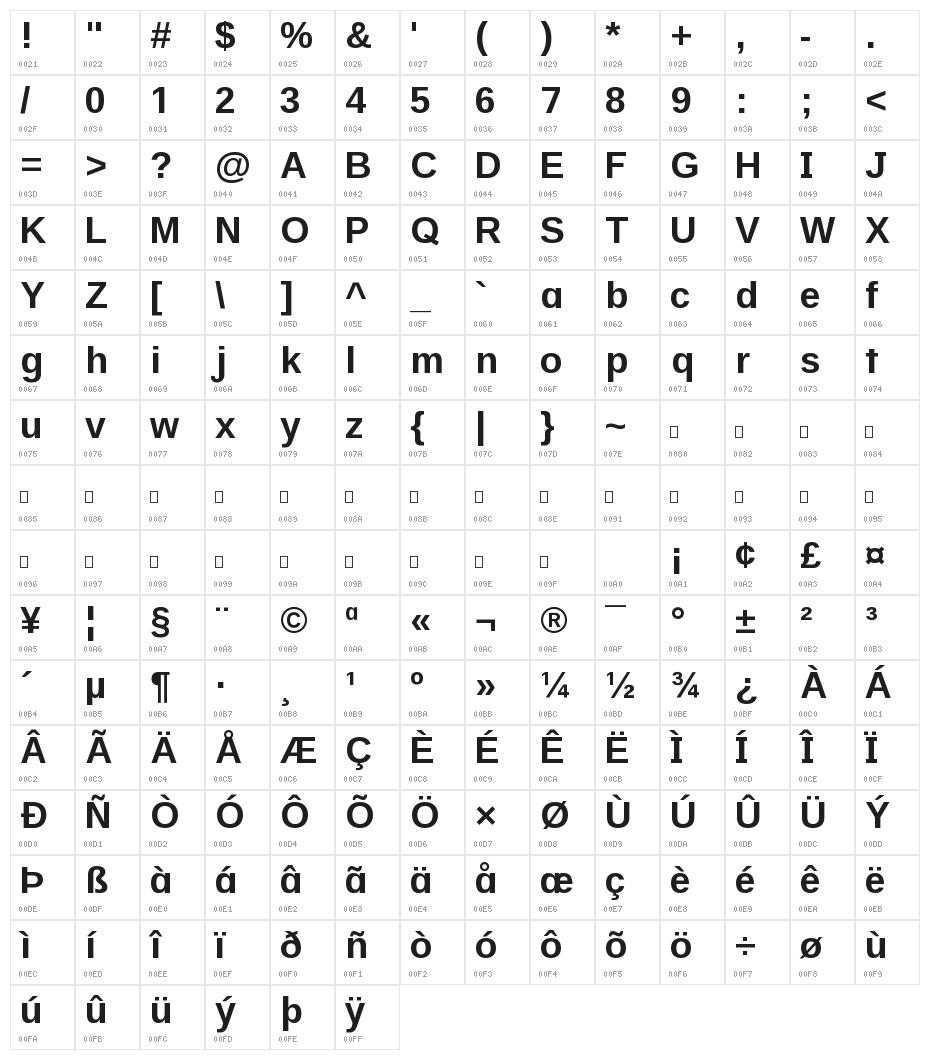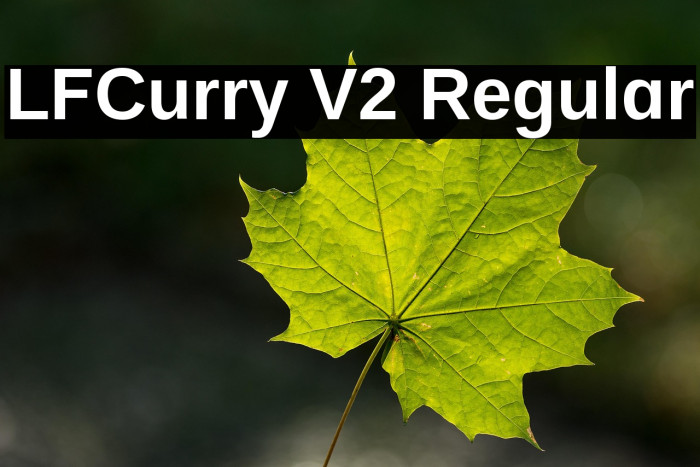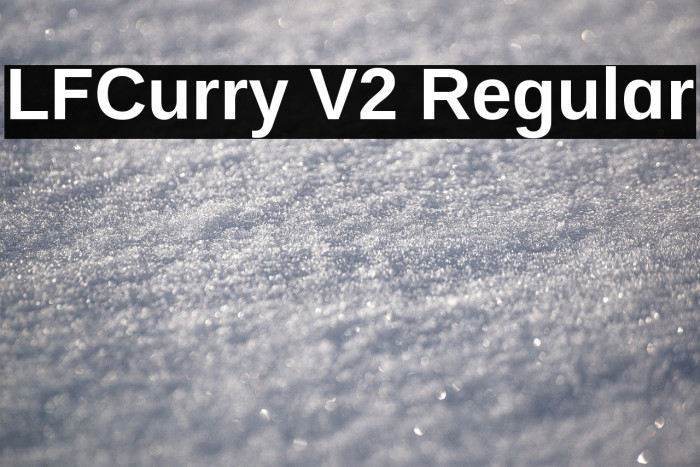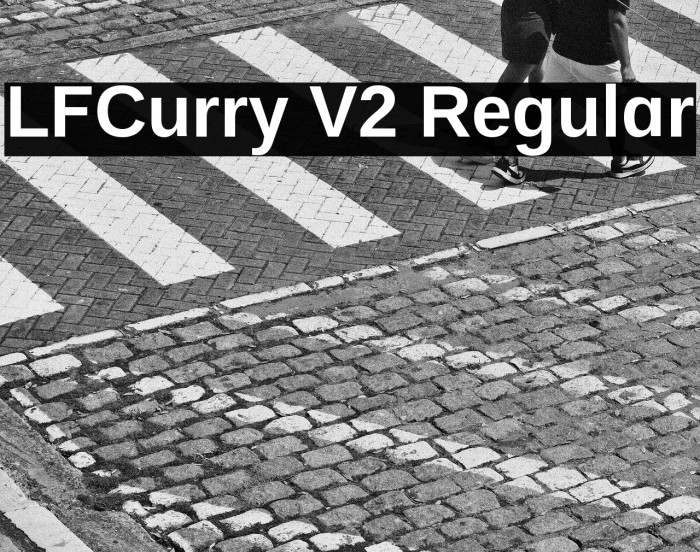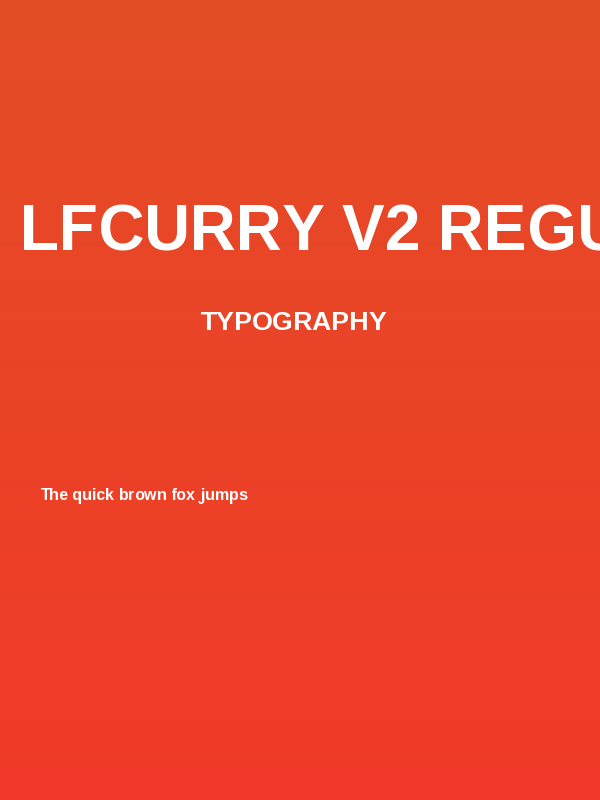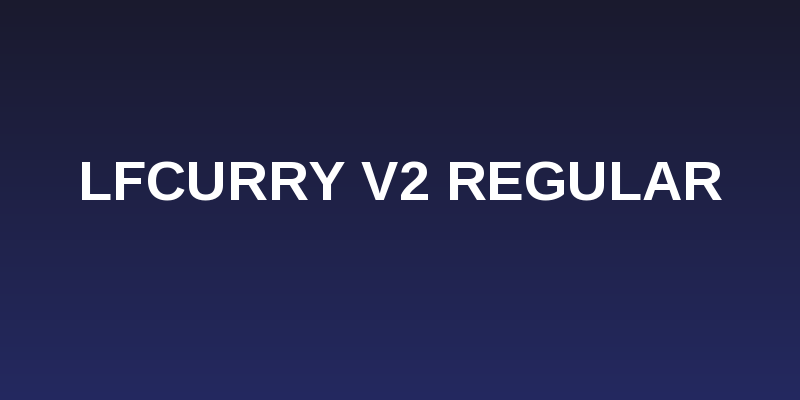
LFCurry V2 Regular Font
LFCurry V2 Regular Description
This font features a modern and clean design with a focus on readability and simplicity. The characters are well-proportioned, with a consistent stroke width that gives it a uniform appearance. The uppercase letters are bold and assertive, while the lowercase letters maintain a friendly and approachable look. The numerals are clear and distinct, making them easy to read. Special characters are designed with the same attention to detail, ensuring they blend seamlessly with the rest of the font. Overall, this font is versatile and suitable for a wide range of applications.